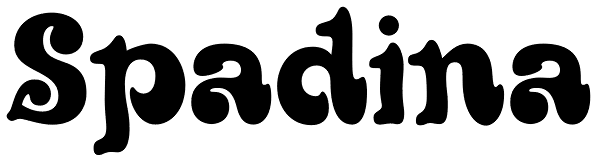
Spadina
The Canada Type library has acquired a reputation for housing some of the most eye-catching and popular hippie and funk fonts. Kevin King wanted to be part of the hype, so he got the green light to get down and boogie, and Spadina is the result...
Spadina Bus
Spadina